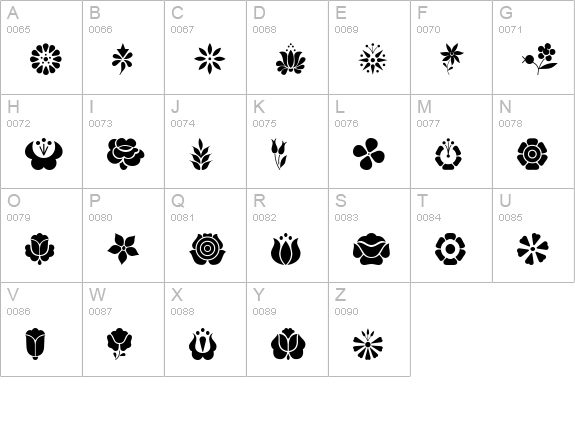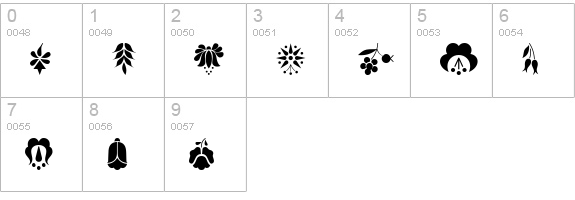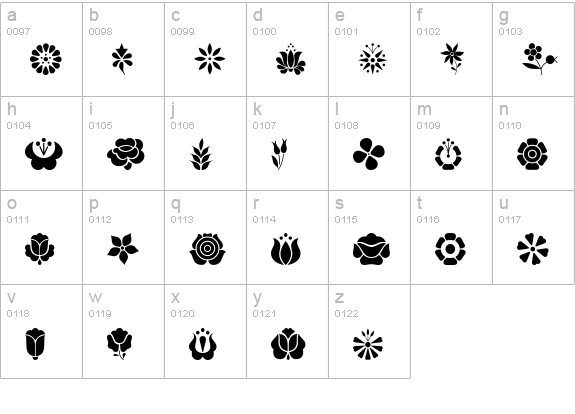
Kalocsai Flowers Font Details
Kalocsai Flowers font is a stunning and intricate display typeface that brings the beauty of traditional Hungarian floral motifs to life. The font draws inspiration from the renowned Kalocsa embroidery, famous for its vibrant colors and intricate detailing. Each letter is delicately crafted to resemble a blooming flower, adding an elegant and feminine touch to any design. The Kalocsai Flowers font is a true masterpiece, with its intricate curves and graceful lines. It captures the essence of the traditional embroidery style, making it perfect for projects that require a touch of cultural heritage and tradition. Whether it's for invitations, greeting cards, branding, or any other creative endeavor, this font is sure to make a lasting impression. What makes Kalocsai Flowers font even more special is that it is freely available to download at FontsMarket.com. This means that designers and enthusiasts alike can access this beautiful typeface without any cost. The creators of Kalocsai Flowers font believe in the power of sharing and want to make sure that everyone can experience the beauty and elegance of this unique font. Downloading Kalocsai Flowers font from FontsMarket.com is a breeze. It takes just a few clicks to access the font file, and once downloaded, it can be used in any design software or application. The font is compatible with both Windows and Mac operating systems, ensuring that it can be used by designers from all backgrounds. So, whether you're working on a personal project or a professional design, Kalocsai Flowers font is the perfect choice. Its intricate details, vibrant colors, and cultural significance will add a touch of elegance and uniqueness to any design. And the fact that it is free to download at FontsMarket.com makes it even more desirable. Don't miss out on this opportunity to elevate your designs with the beauty of Kalocsai Flowers font.